Best Serif Fonts for Logo Design: Modern, Luxury & Display Picks
Serif fonts never really went out of style—they just evolved. From luxury fashion brands to indie game studios, serif typography continues to define strong visual identities in 2026.
But not all serif fonts are created equal. Some are refined and editorial. Others are playful, bold, or even cinematic. Choosing the right one can completely change how your brand is perceived.
Let’s break down what makes a great serif font—and explore some standout examples.
Top Serif Fonts for Logo Design (From Real Examples)
Let’s explore some real-world serif fonts and what makes them unique.
1. Bravo — Playful Display Serif
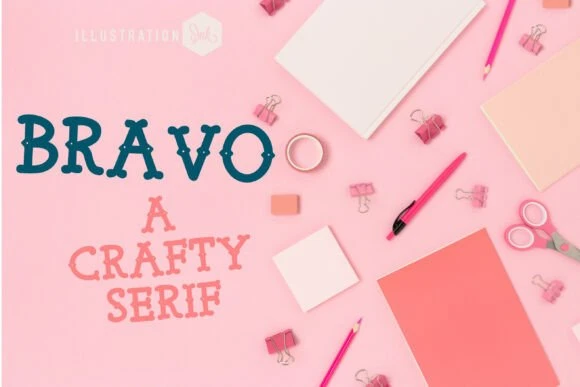
Bravo is a whimsical display serif with bold, rounded shapes and playful “circus-style” accents. It leans heavily into personality, making it ideal for:
- Kids brands
- Toy stores
- Party or event logos
Its “bubbly-and-bright” character gives it strong visual appeal in social media and playful branding.
2. Cheqah — Clean Modern Serif
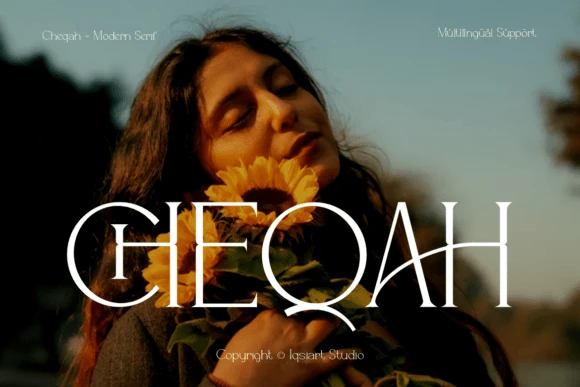
Cheqah represents a more neutral modern serif approach. It’s versatile and suitable for:
- Corporate branding
- Editorial layouts
- Lifestyle brands
Its multilingual support also makes it practical for global projects.
3. Ropang — High-Fashion Serif
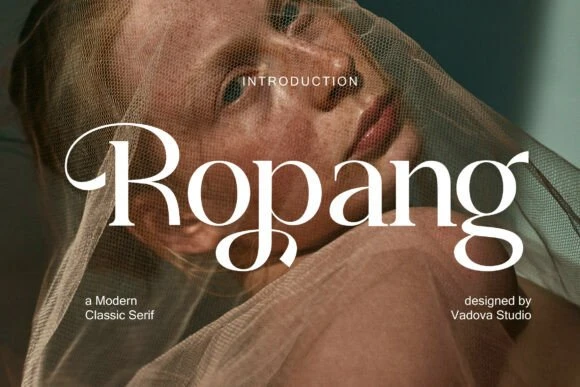
Ropang is a high-contrast serif with elegant swashes and elongated forms. It’s clearly built for:
- Fashion brands
- Jewelry logos
- Luxury magazines
The balance between vintage editorial style and modern branding makes it a strong choice for premium identity design.
4. Boserich — Editorial Luxury Typeface
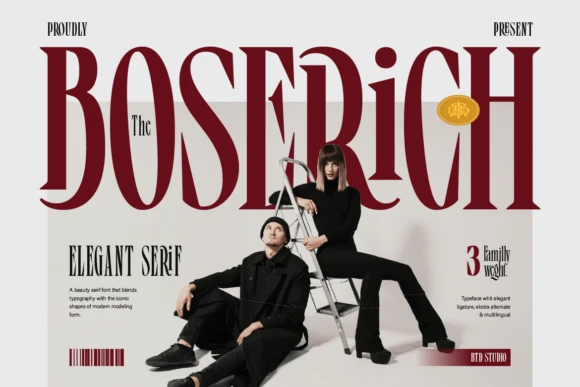
Boserich blends classic serif structure with modern detailing, including ligatures and multiple weights. It works especially well for:
- High-end branding
- Magazine layouts
- Packaging design
Its high contrast strokes and refined curves create a strong visual presence while maintaining readability.
5. Neilora — Stencil Serif Hybrid
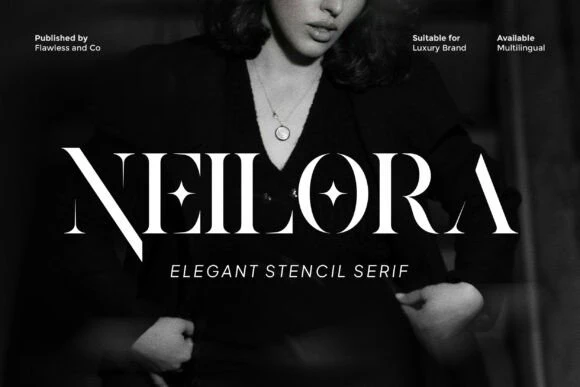
Neilora introduces a twist: combining serif elegance with stencil-style cuts. This makes it:
- Unique for branding
- Eye-catching in editorial use
- Ideal for standout logos
It’s a great example of how modern serif fonts are evolving beyond traditional forms.
6. Mello Serif — Clean & Versatile Family
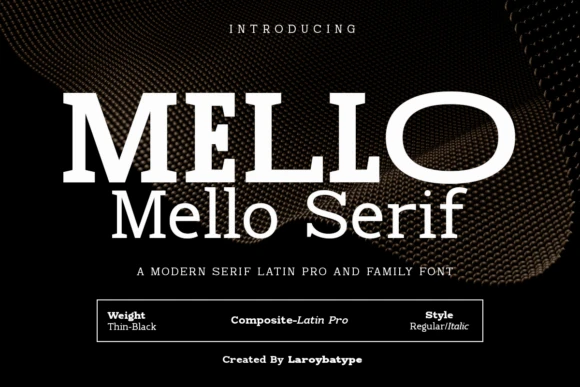
Mello Serif is a full font family with multiple weights and italics. It’s designed for flexibility across:
- Logos
- Headlines
- Editorial content
Its clean structure and balanced contrast make it suitable for both modern and classic branding.
7. Regsrok — Fantasy Game Serif
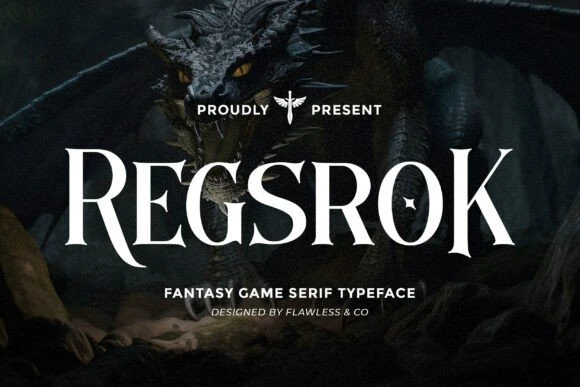
Regsrok targets a completely different niche: gaming and fantasy. With sharp serifs and medieval-inspired details, it’s perfect for:
- Game titles
- Fantasy books
- Cinematic posters
It demonstrates how serif fonts can create immersive storytelling experiences.
8. Bimolla — Minimal Luxury Serif
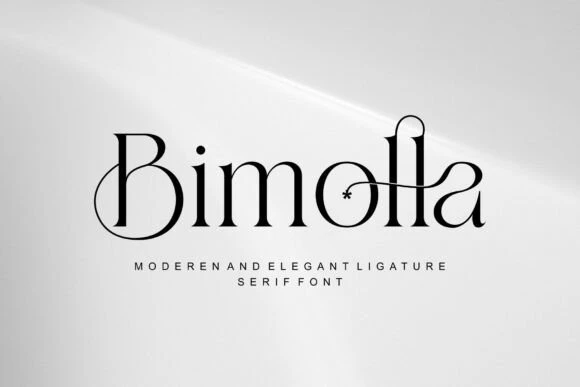
Bimolla is all about minimalism and elegance. With smooth curves and refined ligatures, it fits:
- Luxury branding
- Wedding invitations
- Fashion logos
Its balanced proportions make it versatile for both headlines and refined text use.
Why Serif Fonts Still Dominate Branding
Serif fonts carry a sense of structure, tradition, and authority. Historically used in print, they naturally convey trust and readability. Today, designers use them to create contrast: blending classic forms with modern aesthetics.
For logos, serif fonts are especially powerful because they:
- Add personality through subtle details (curves, terminals, ligatures)
- Scale well across digital and print
- Support both minimal and decorative styles
Modern vs Display Serif Fonts Explained
Not all serif fonts serve the same purpose.
Modern serif fonts are clean, refined, and often used in luxury branding. They typically feature:
- High contrast strokes
- Elegant proportions
- Minimalist aesthetics
Display serif fonts, on the other hand, are designed to stand out. They are:
- More decorative
- Often bold or stylized
- Best for headlines and logos
Understanding this difference helps you choose the right tool for your brand.
How to Choose the Right Serif Font
Choosing the right serif font depends on your brand identity.
Ask yourself:
- Do you want playful or premium?
- Minimal or decorative?
- Modern or vintage?
Quick guide:
- Luxury brand → Ropang, Boserich, Bimolla
- Playful brand → Bravo
- Corporate / versatile → Cheqah, Mello Serif
- Unique / experimental → Neilora
- Gaming / fantasy → Regsrok
Avoid overcomplicating your logo. A strong serif font should enhance readability while adding personality.
Serif fonts are more versatile today than ever before. From high-fashion elegance to fantasy storytelling, they adapt to almost any brand identity.
The key isn’t just picking a “beautiful” font—it’s choosing one that aligns with your message, audience, and visual tone.
If you get that right, your logo won’t just look good—it will feel right.